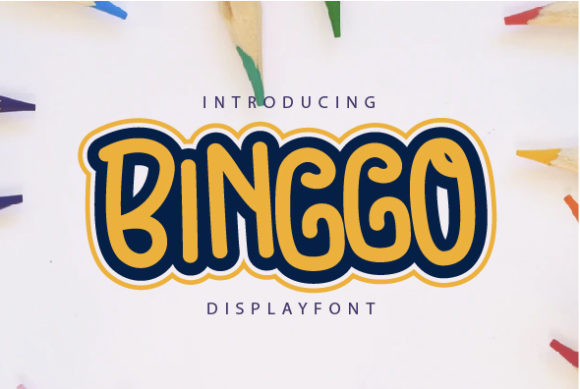
**Witness the Spectacularity of Binggo: The Font That Redefines Display Mastery**
Prepare to be spellbound as you introduce Binggo, the display font that shatters all expectations. Binggo's captivating curves and exceptional legibility make it the undisputed champion for crafting logos, headlines, and posters that leave an unforgettable mark.
Dive into the realm of Binggo and let your creativity soar. This magnificent font boasts an unparalleled allure, inviting you to express your unique style with boundless enthusiasm. Whether you're an ardent designer or a passionate entrepreneur, Binggo empowers you to showcase your vision with flair and distinction.
But wait, there's more! Binggo is not just another font; it's a gateway to unlocking your imagination. Its playful character and versatility ignite a spark within you, inspiring you to craft designs that resonate with your audience.
Don't settle for mediocrity when you can embrace brilliance. Choose Binggo, the display font that elevates your designs to new heights. Let its exquisite curves and captivating presence captivate your audience, leaving them in awe of your creations.
**Embrace Binggo and Unleash the Power of Exceptional Typography Today!**